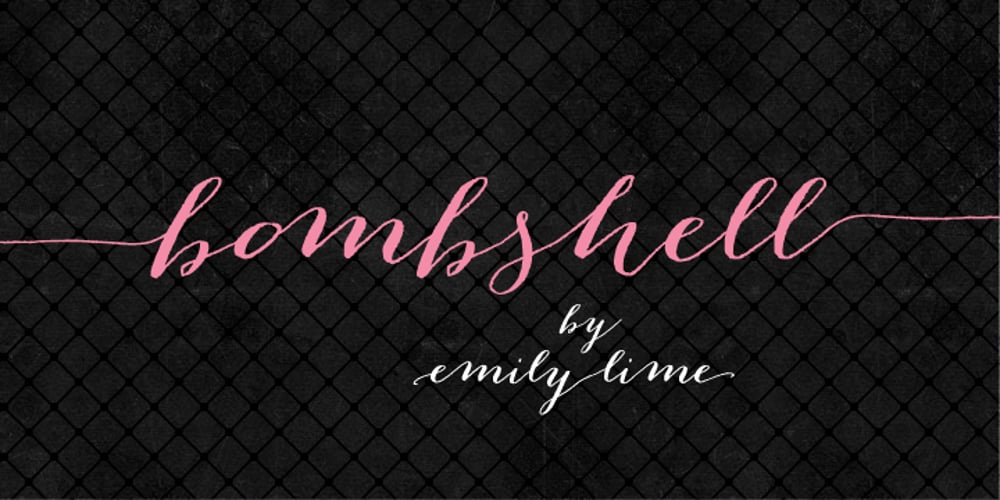
Bombshell Pro
Bombshell Pro font
Bombshell Pro Font Family was designed by Emily Conners and published by Emily Lime. Bombshell Pro contains 1 styles and family package options. Bombshell Pro is a passionate hand-calligraphy font that includes long connections between letters so you can create beautiful headings or signature looks. Open-type version features 800+ glyphs including initial and terminal letters, alternates, roman numerals (III & IV), and “run-on” letter connections. So you can create realistic hand-calligraphy on all of your creations!